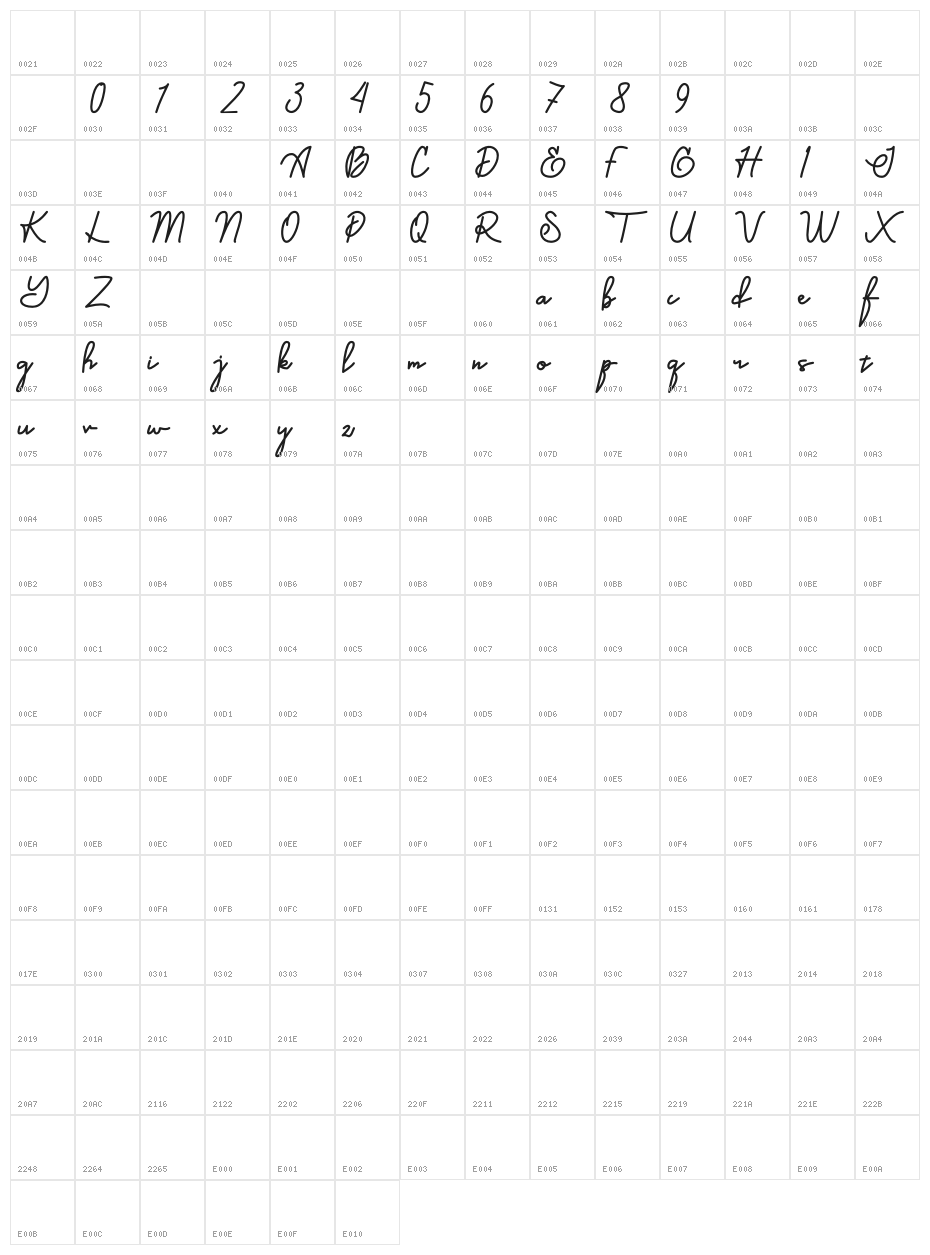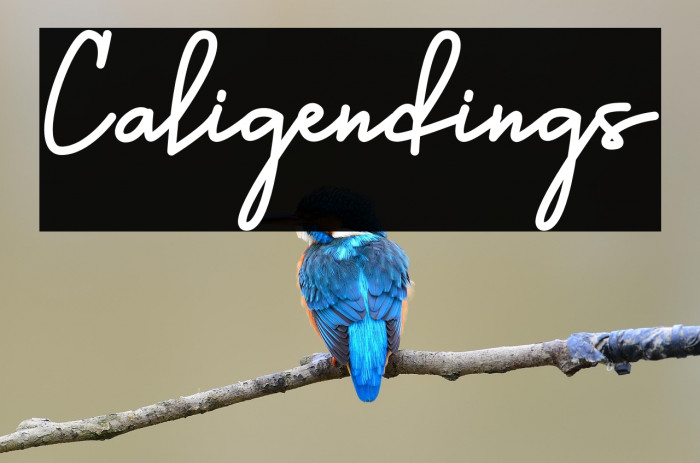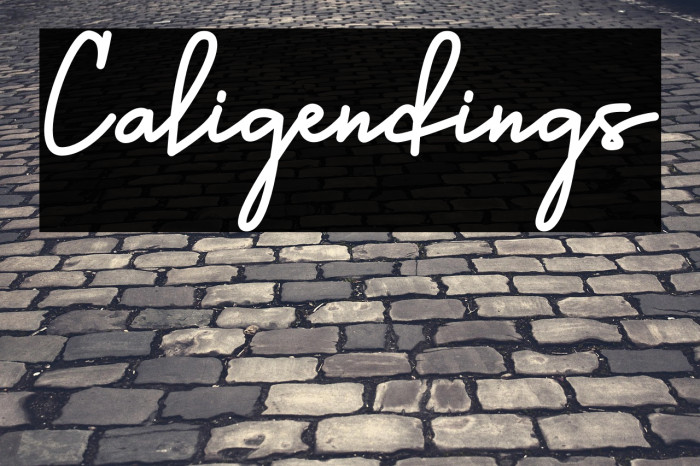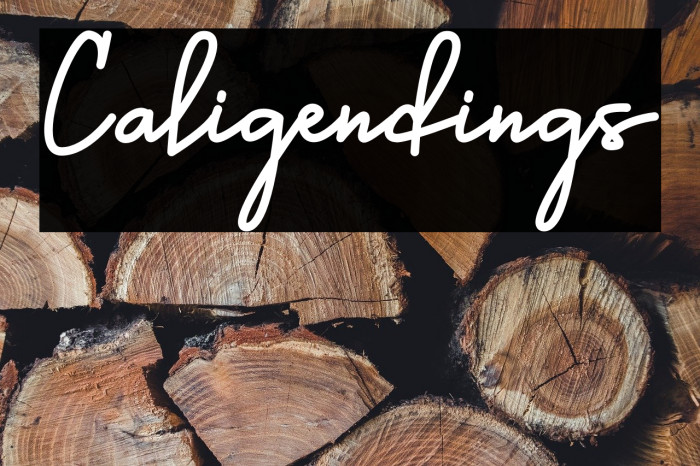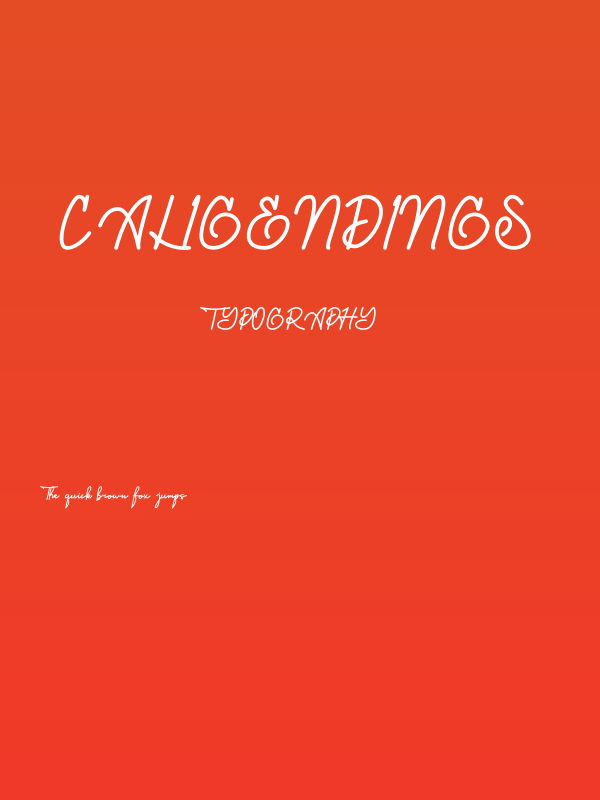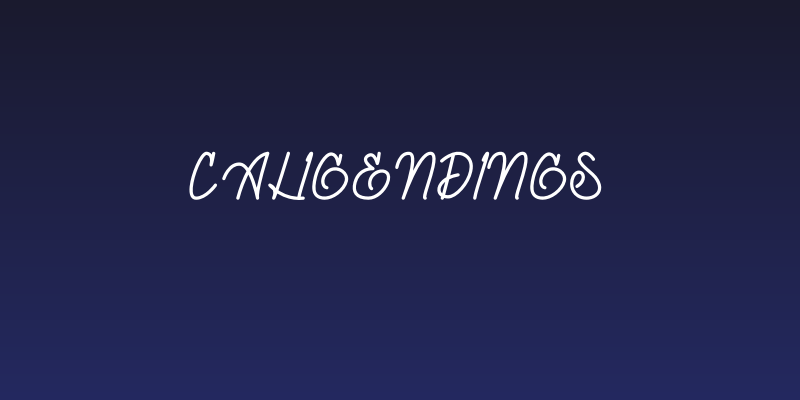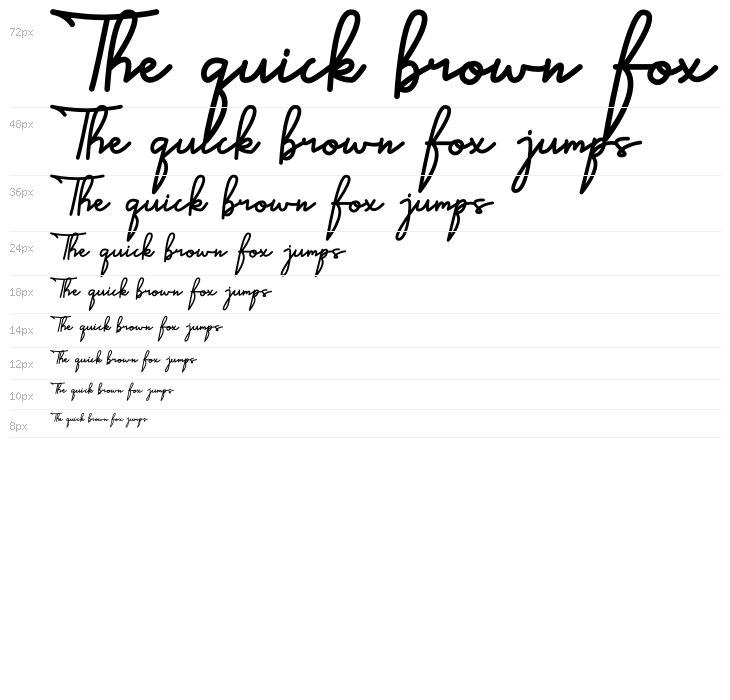
Caligendings Font
Caligendings Description
This font features a flowing, cursive style that exudes elegance and sophistication. The uppercase letters are bold and slightly slanted, with smooth curves and loops that create a sense of movement. The lowercase letters maintain the same fluidity, with some letters connecting seamlessly to the next, enhancing the script-like appearance. The numbers are consistent with the overall style, maintaining the cursive flow. This font is ideal for projects that require a personal touch, such as invitations, greeting cards, or branding that seeks to convey a sense of elegance and tradition.
| Overall Style | Elegant, Classic |
| Use Case | Headlines, Invitations, Branding |
| Proposed Projects | Ideal for wedding invitations, greeting cards, elegant branding, and personal stationery. |